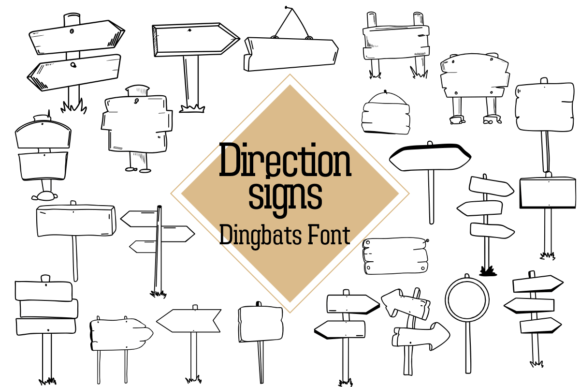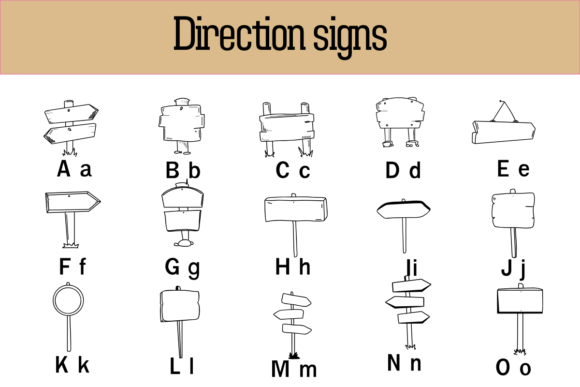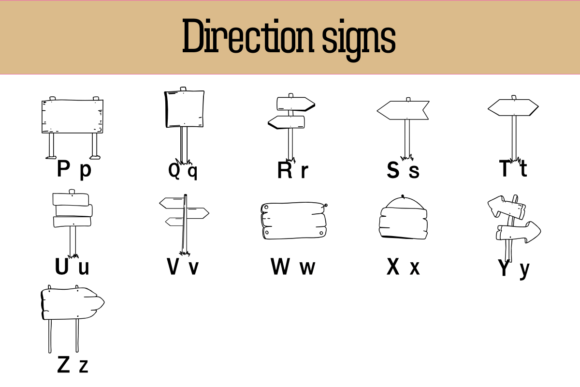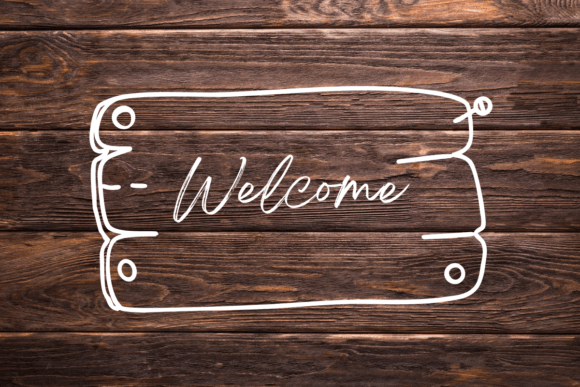
Direction Signs Font
About the Direction Signs Font
The Direction Signs Font is here to transform your projects with its distinctive character and style. Direction Signs is a fun and practical dingbats font that goes beyond letters – it’s filled with a variety of directional symbols. Use this font to add a playful touch to your designs, guiding attention in a creative way. Whether you’re creating maps, signage, or just want to add a whimsical element to your project, Direction Signs is the perfect choice. Easily navigate through design possibilities with this charming font that speaks direction in every character.
Direction Signs excels in projects requiring playful navigation or emphasizing directionality, such as children’s books, playful branding for travel agencies or adventure companies, or quirky event signage. It’s ideal for headlines, short phrases, and icons within a larger design, adding visual interest without overwhelming the piece. Avoid using it for body text or lengthy passages; its playful nature is best suited for accentuation, not extensive reading.
Pairing it with a clean sans-serif like Open Sans for body text creates a strong contrast, balancing the whimsical nature of Direction Signs. For a more sophisticated feel, consider pairing it with a classic serif like Garamond, allowing the playful dingbats to stand out against a refined backdrop. Alternatively, a geometric sans-serif font adds a modern touch.
Direction Signs projects a bold and friendly personality. Its strength lies in its ability to add a touch of whimsy and guidance to otherwise straightforward designs. The font’s core personality is energetic and playful, not serious or elegant.
Direction Signs Font Usage Examples
Direction Signs Font Example